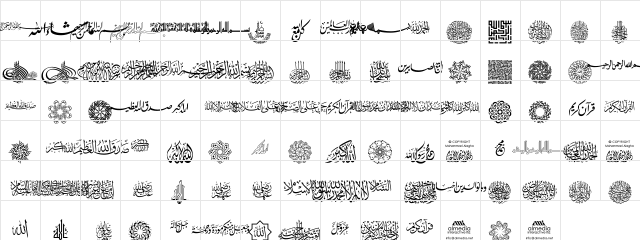
AGA Islamic Phrases Regular
Design Context for AGA Islamic Phrases Typeface
AGA Islamic Phrases is a composed and adaptable typeface that performs quietly and consistently across a wide range of design contexts.